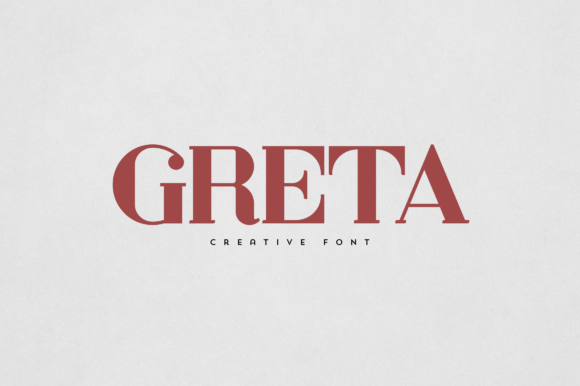
Step into the world of Greta Font, an exquisite serif font family that exudes elegance and charm, ready to transform your typography into a captivating masterpiece. With its graceful curves and timeless beauty, Greta Font will leave an unforgettable impression on your designs.
Crafted by the talented vladfedotovv, Greta Font is a versatile font that seamlessly adapts to a myriad of creative projects. Whether you're designing a sophisticated logo, crafting a captivating branding identity, or creating eye-catching headlines, Greta Font will elevate your designs to new heights.
Dive into the versatility of Greta Font and discover its boundless applications. Bring a touch of sophistication to your homeware designs, creating products that radiate warmth and charm. Elevate your product packaging with elegant typography that commands attention on shelves. Make your magazine headers stand out with a touch of timeless beauty that draws readers in. Or use Greta Font as a stylish text overlay, transforming any background image into a work of art.
With Greta Font, the possibilities are endless. Its ability to effortlessly blend with various design styles and elements makes it a must-have for any designer seeking to create captivating visuals.
Greta Font is not just a font; it's an experience. It's an invitation to explore the realm of creativity, to push boundaries, and to leave a lasting impression on your audience. So, embrace the elegance of Greta Font and let your designs flourish with its timeless beauty.